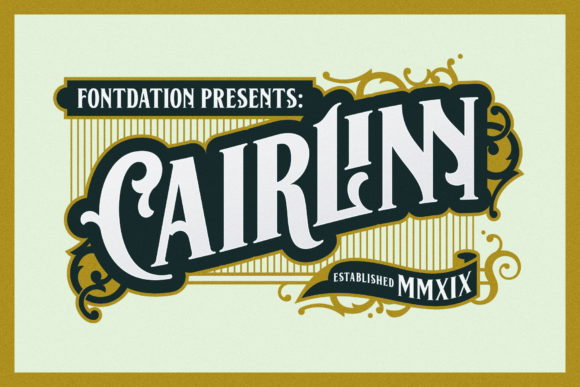
Discover the Charm of Cairlinn Font: A Vintage-Inspired Serif for Your Design Arsenal
Have you ever been in the middle of a design project, and suddenly, you’re stuck on finding the perfect font? I recall a recent experience where I was working on a vintage-themed label design for a craft fair, and no matter how many fonts I tried, none seemed to capture the essence of classic typography. That’s when I stumbled upon the Cairlinn font, and it instantly became my go-to choice. In this article, I’ll share my love for this beautiful font, its features, and how you can make the most of it in your designs.
An Honest Review of Cairlinn Font
What I Love About Cairlinn Font
- ✨ Clean serif design that exudes a sense of sophistication and elegance
- ✅ Highly legible, making it perfect for body text and headlines
- ⚡️ Versatile and adaptable to various design projects, from labels to typographic quotes
- 📸 Beautifully crafted to evoke a vintage feel, reminiscent of classic advertisements
While Cairlinn font is an excellent choice for many design projects, there are a few minor quirks to be aware of:
- 🤔 Limited availability of stylistic alternates, which might restrict some creative experimentation
- ⚠️ Not ideal for very small font sizes, as some details might get lost
The Backstory of Cairlinn Font
Cairlinn font was inspired by the beautiful letters used in classic advertisements from the early 20th century. The designer aimed to create a font that would evoke a sense of nostalgia and timelessness, while still being clean and legible. The result is a versatile font that can be used in various design projects, from vintage-themed labels to modern typographic quotes.
- Q: What type of projects is Cairlinn font best suited for?
- A: Cairlinn font is ideal for projects that require a vintage touch, such as labels, t-shirt design, typographic quotes, packaging, wedding invitations, and more.
- Q: Is Cairlinn font suitable for body text?
- A: Yes, Cairlinn font is highly legible and can be used for body text, although it’s particularly stunning as a headline or title font.
- Q: Does Cairlinn font support OpenType features?
- A: Yes, Cairlinn font supports OpenType features, including ligatures and stylistic alternates, which can be accessed through compatible design software.